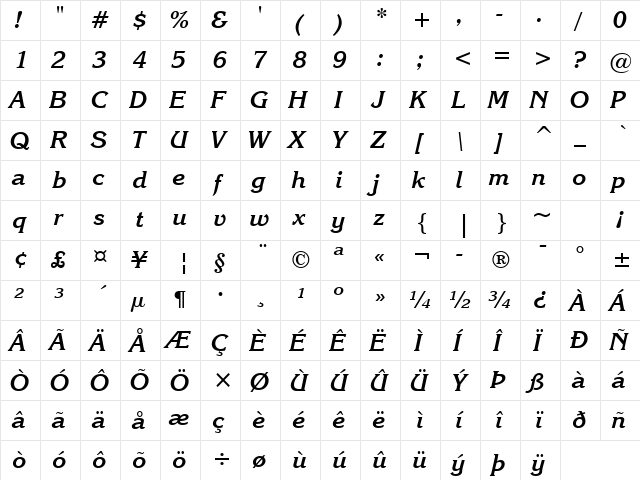
Korinna BT Kursiv Bold Font Preview
Korinna BT Kursiv Bold
Korinna BT Kursiv Bold Font Details
| Style | Kursiv Bold |
Design Context for Korinna BT Typeface
Korinna BT takes a measured approach to typography — its balanced proportions and neutral character make it a reliable workhorse for both digital and print work. The slanted form adds forward momentum and visual energy. Its bold stroke weight gives it real presence on the page.